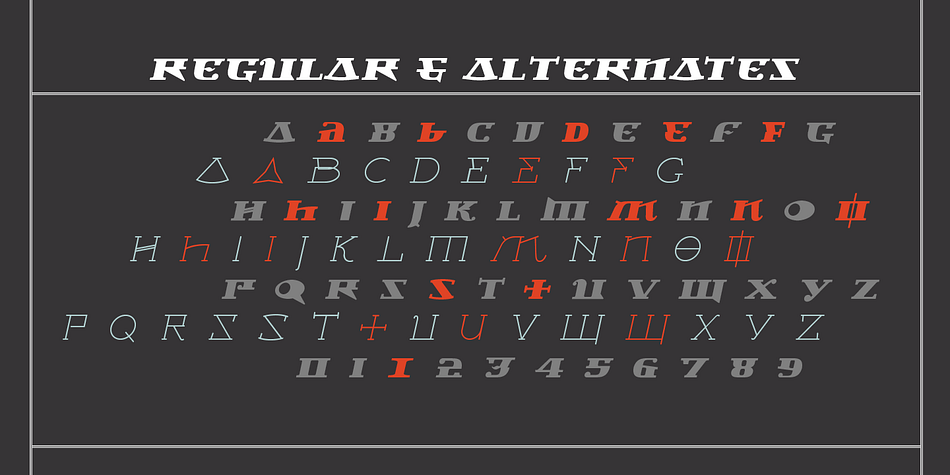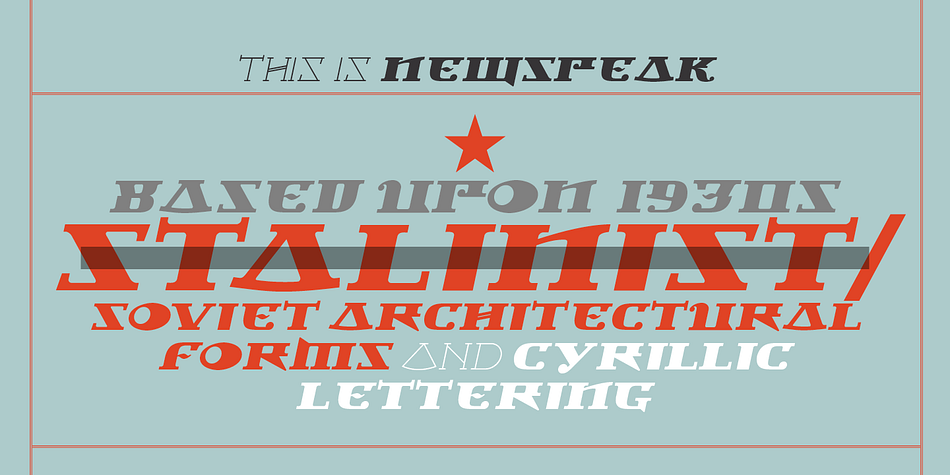
NEWSPEAK
Designed by Jonathan Barnbrook, Newspeak is an exotic and novelty font family. This typeface has two styles and was published by Barnbrook Fonts.
A display typeface based upon Soviet architectural forms from the Stalinist period (spanning the 1930s–‘50s). Stalinist architecture is now considered unsightly and without aesthetic merit, yet it has a strange beauty, hinting at an unrealised utopia (while its function was to buttress a brutal dictatorship). Quite obviously, Newspeak is also inspired by Cyrillic letterforms.